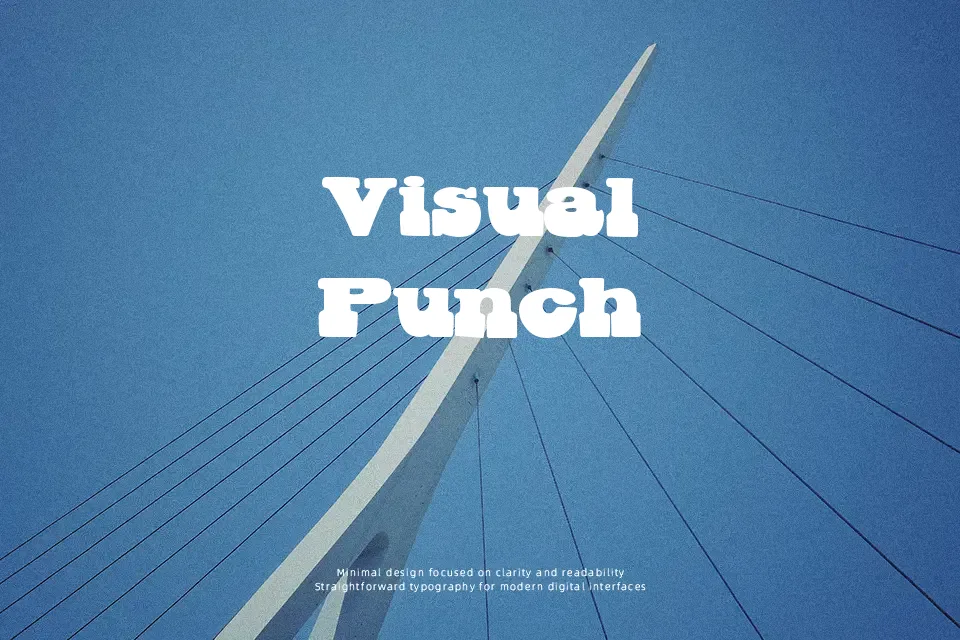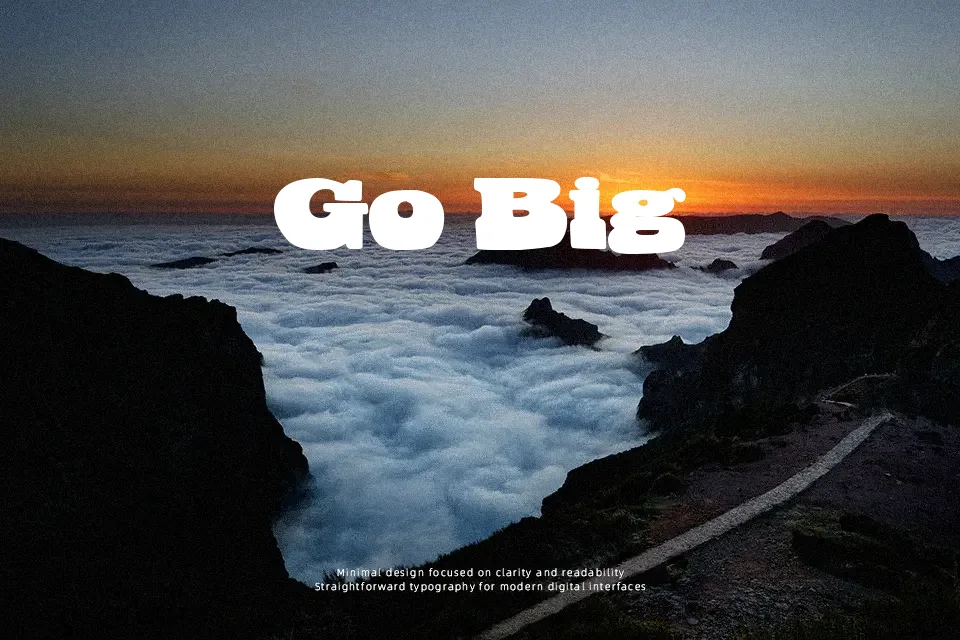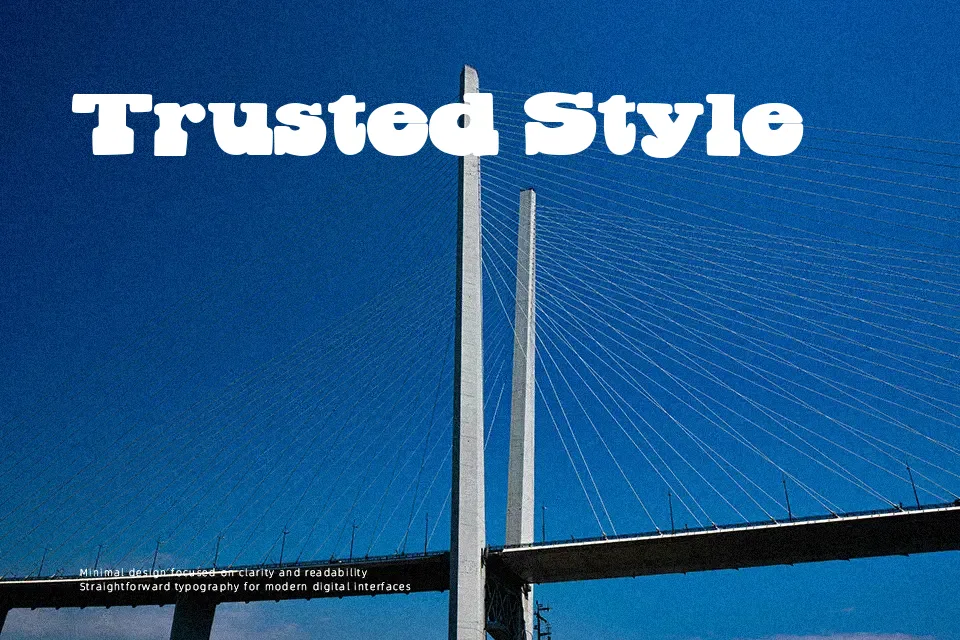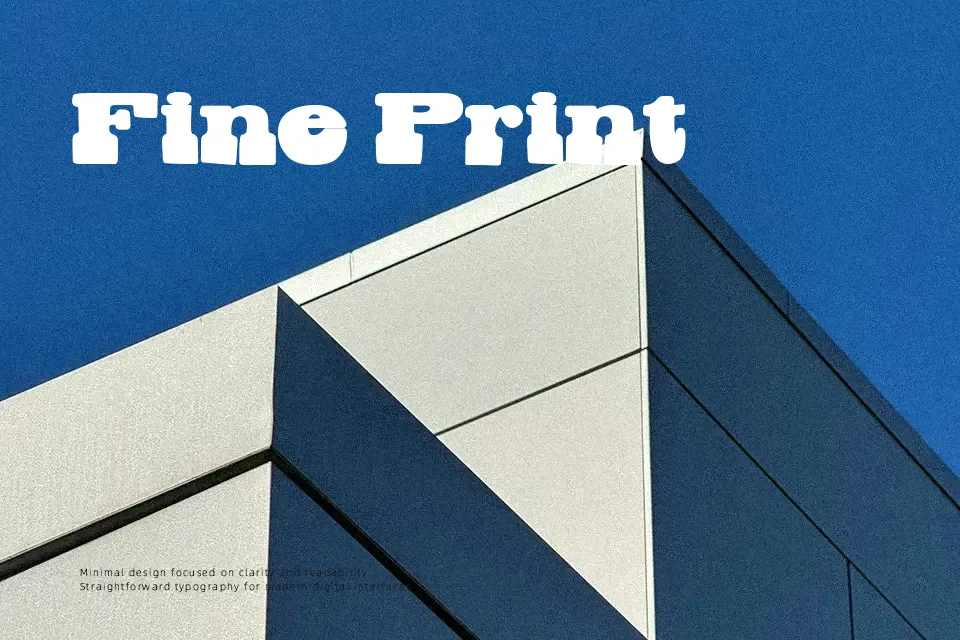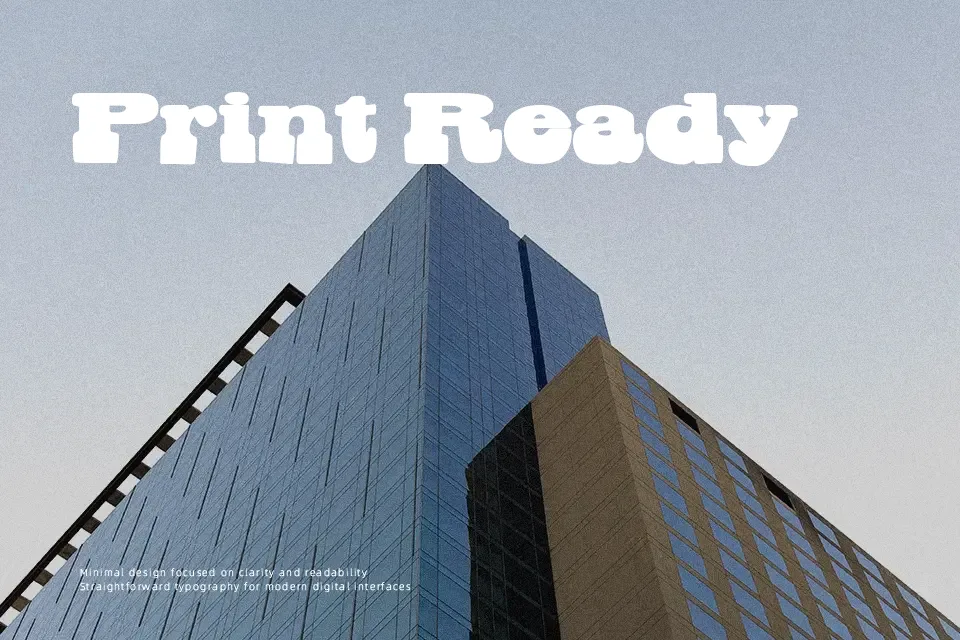
Pool & Beer Font
Pool & Beer Font immediately establishes a fun, retro atmosphere with its heavily weighted, undulating strokes. The letterforms exhibit a distinct waviness and bubbly curvature that recall classic display typography. Because the characters are quite thick and tightly spaced, this typeface delivers massive visual impact when used at larger scales. The heavy proportions ensure headlines stand out prominently against busy backgrounds. However, the dense forms reduce comfort during extended reading, making it less suitable for long paragraphs or small captions. This bold design performs best when applied to vibrant music festival posters, retro apparel graphics, and energetic beverage branding.
Best For: music festival posters, retro apparel graphics, beverage branding
Not Ideal For: long paragraph text, small interface labels, corporate reports
Perfect for branding, headline, and music, with a bold and decorative style.